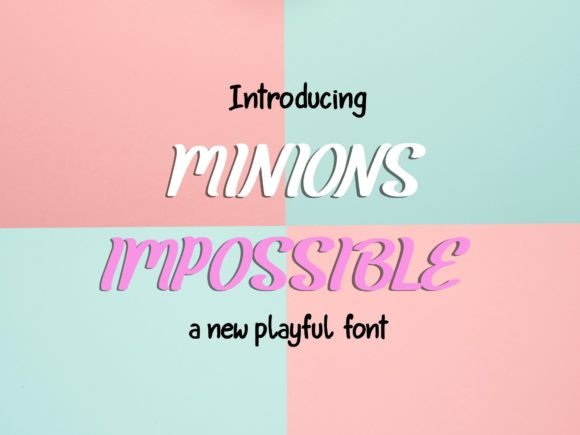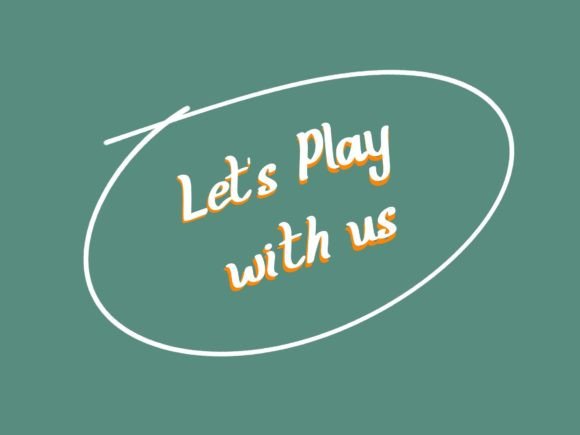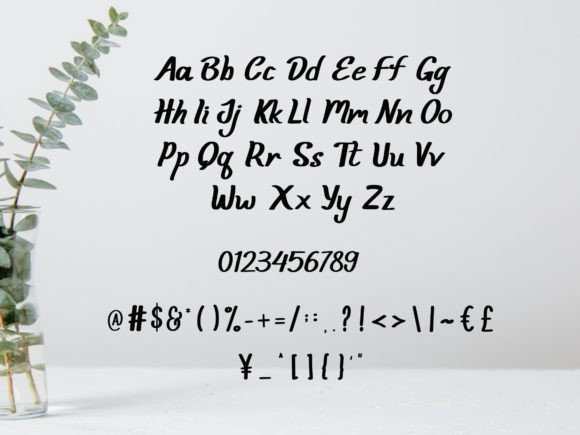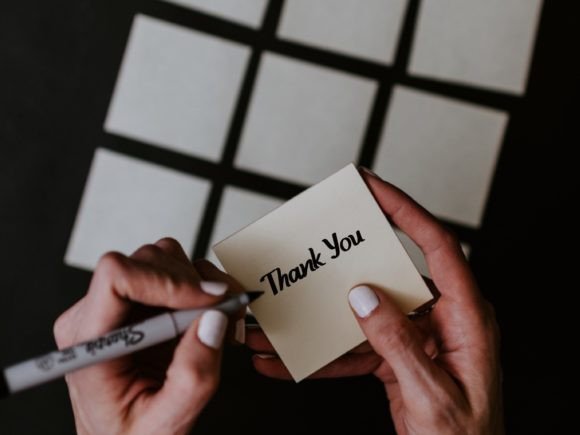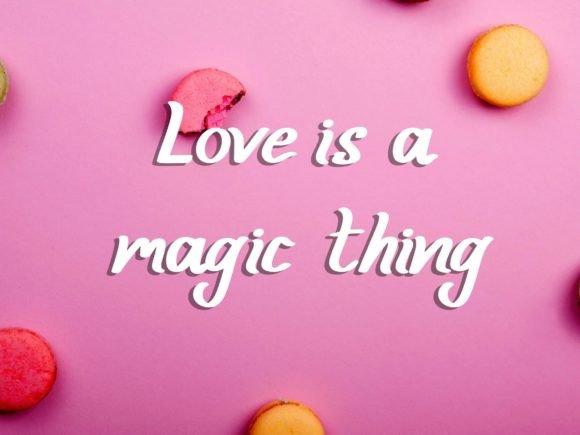
Minions Impossible Font
Minions Impossible is a font that seamlessly blends playfulness with style. Striking a harmonious balance between a lighthearted demeanor and a touch of professionalism, this font opens up a myriad of creative possibilities for various design projects. Its versatility makes it an ideal choice for a wide range of applications, allowing you to infuse a sense of whimsy into your work while maintaining a polished aesthetic.
Whether you’re working on projects related to branding, advertising, social media, or beyond, Minions Impossible adds a dash of personality that sets your designs apart. The font’s playful charm injects a sense of fun and creativity, making it well-suited for projects that aim to engage and captivate audiences.
The stylish elements of Minions Impossible make it a versatile tool for both casual and more formal design contexts. Its adaptability ensures that it can effortlessly complement a variety of themes and concepts, giving you the freedom to experiment and create visually appealing compositions.
Minions Impossible isn’t just a font; it’s an invitation to explore the intersection of creativity and professionalism. Whether used for headlines, titles, or body text, its balanced fusion of playful and sophisticated elements makes it a go-to choice for designers seeking a font that can adapt to the diverse needs of their projects.
In conclusion, embrace the playful yet stylish nature of Minions Impossible to breathe life into your design endeavors. Let this font be the key to unlocking a world of creativity, where every project becomes an opportunity to showcase the perfect blend of fun and professionalism.